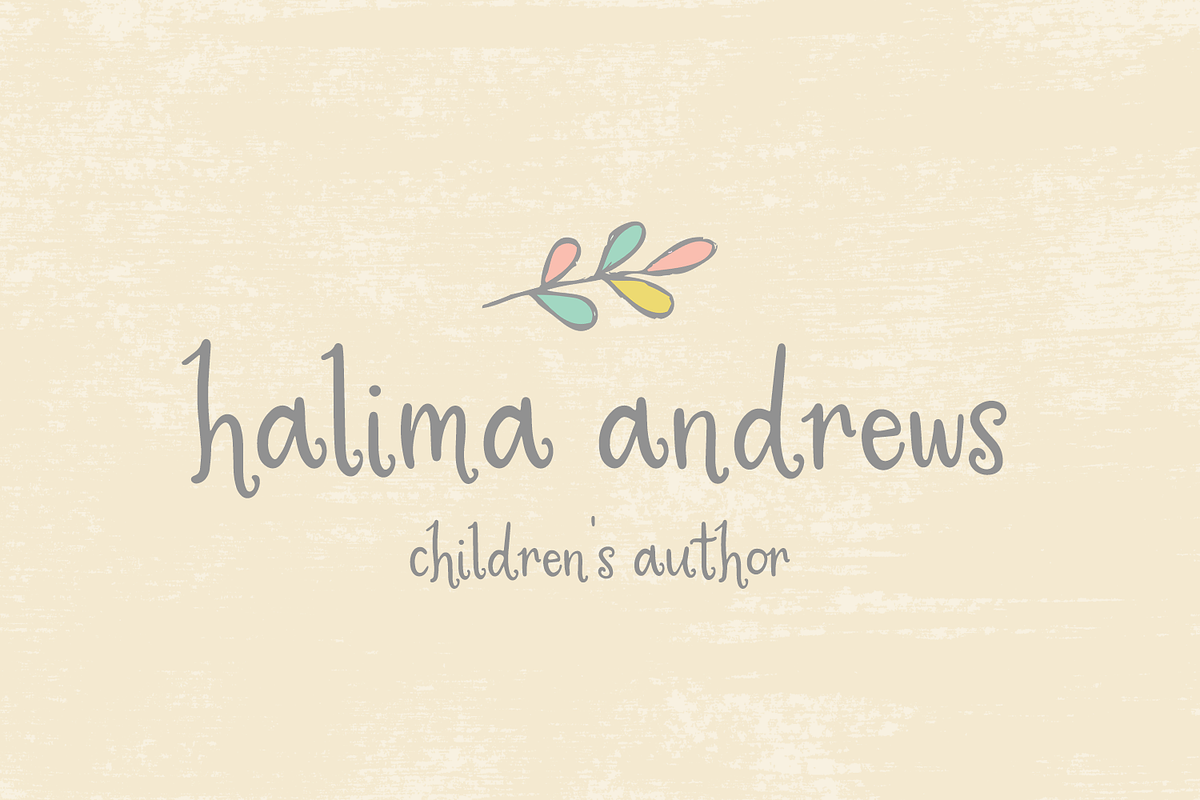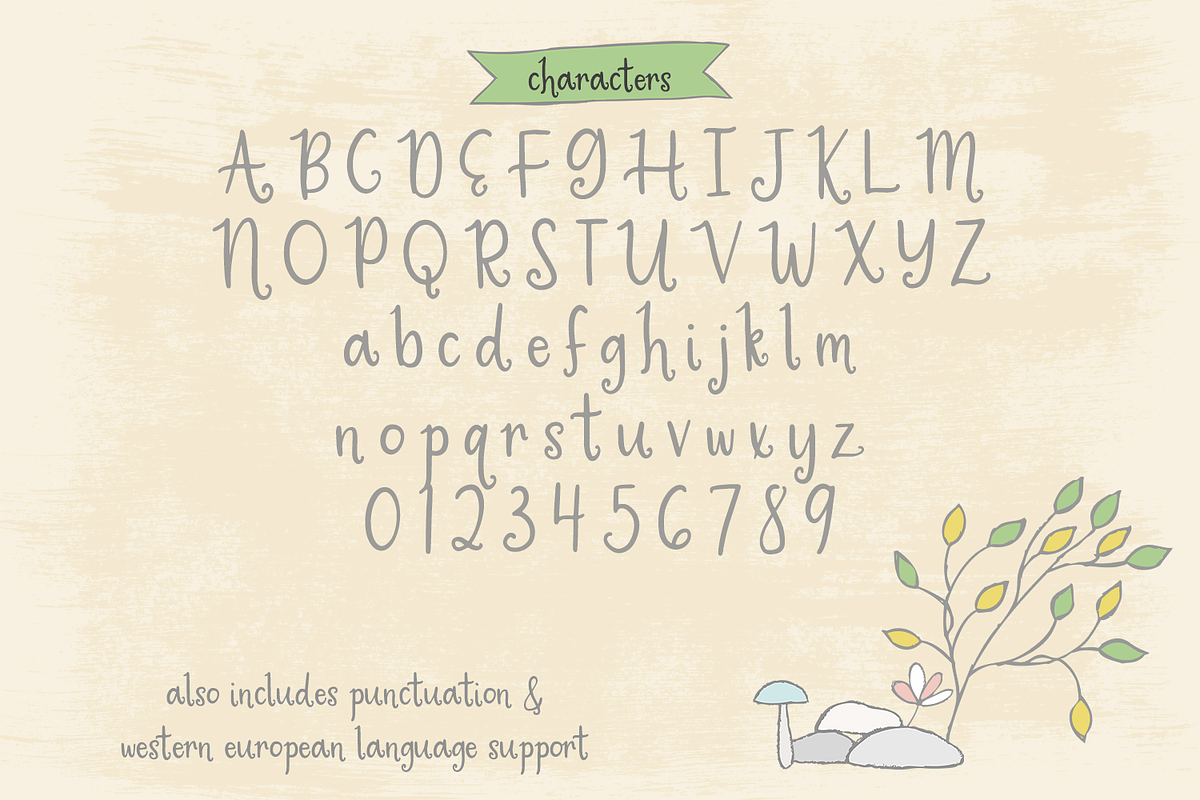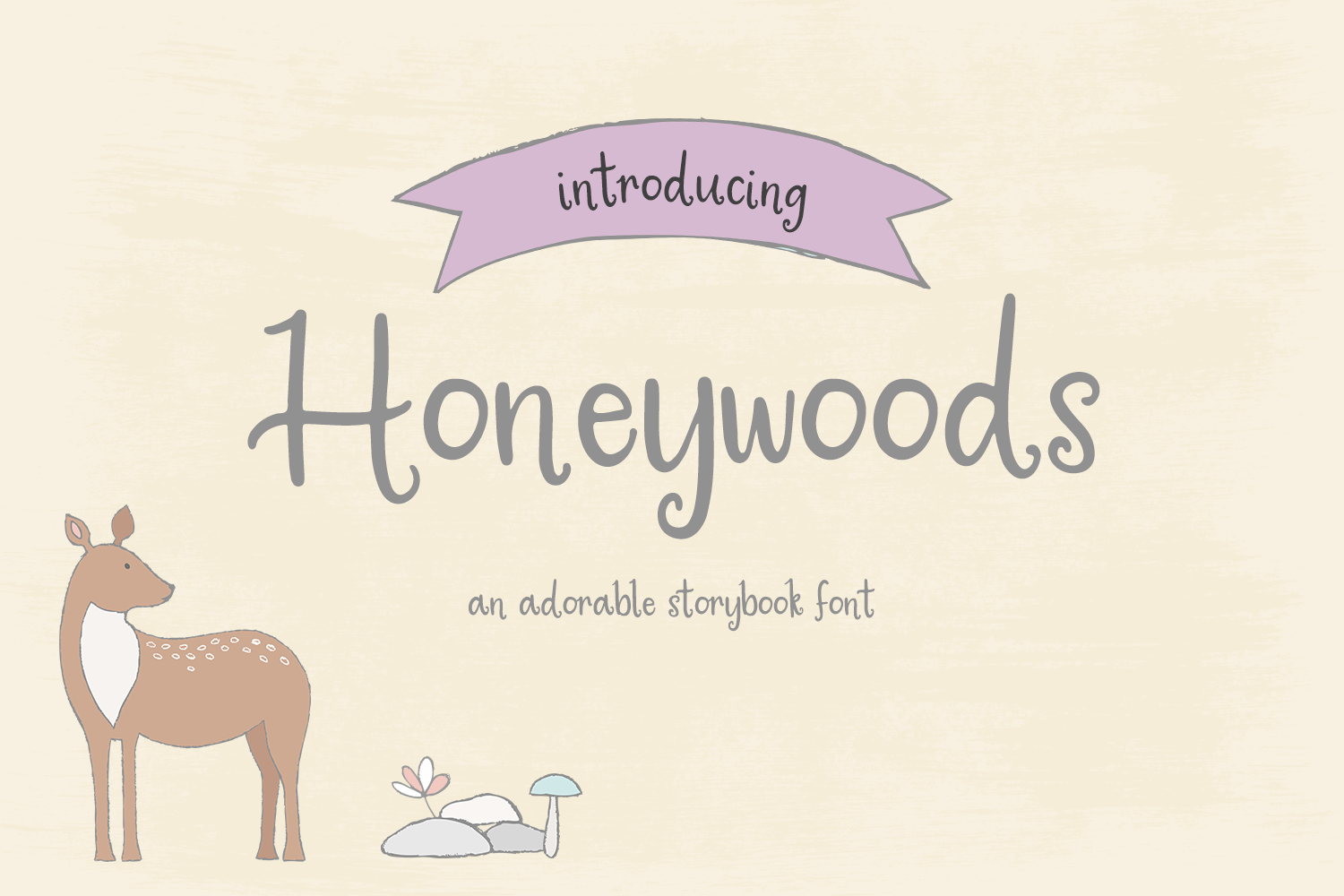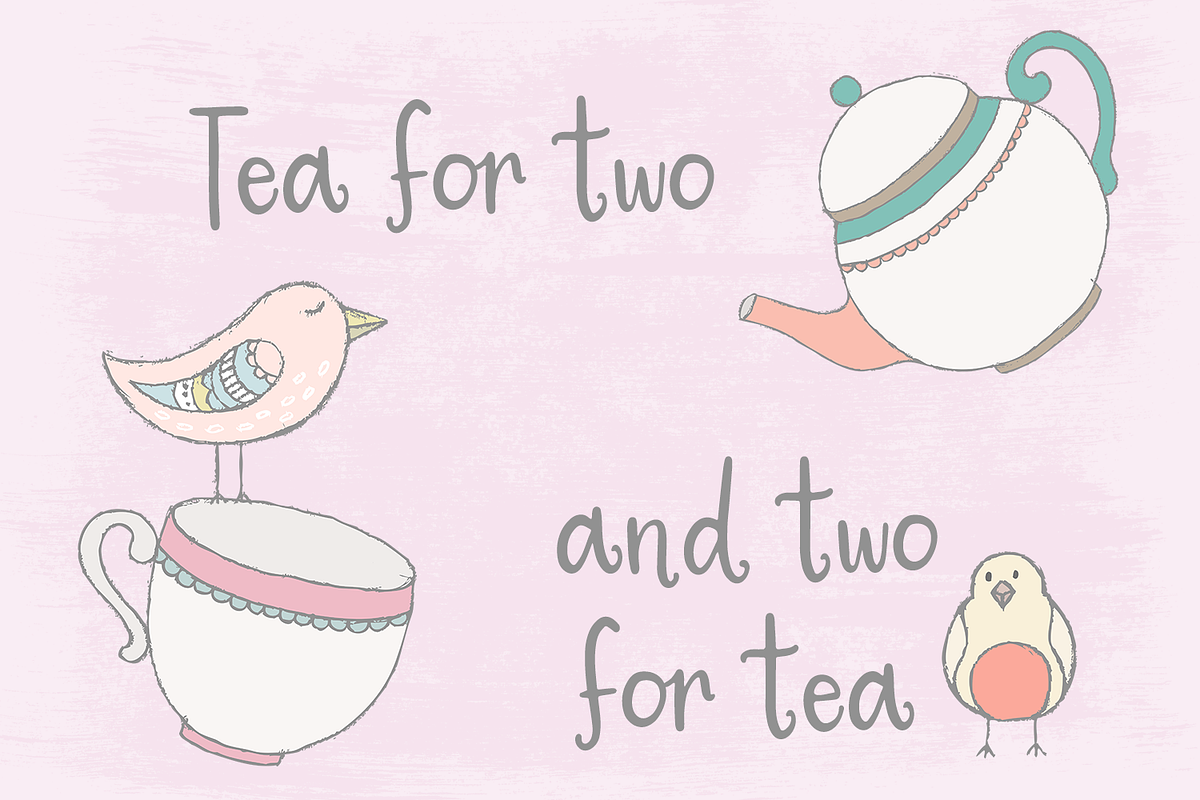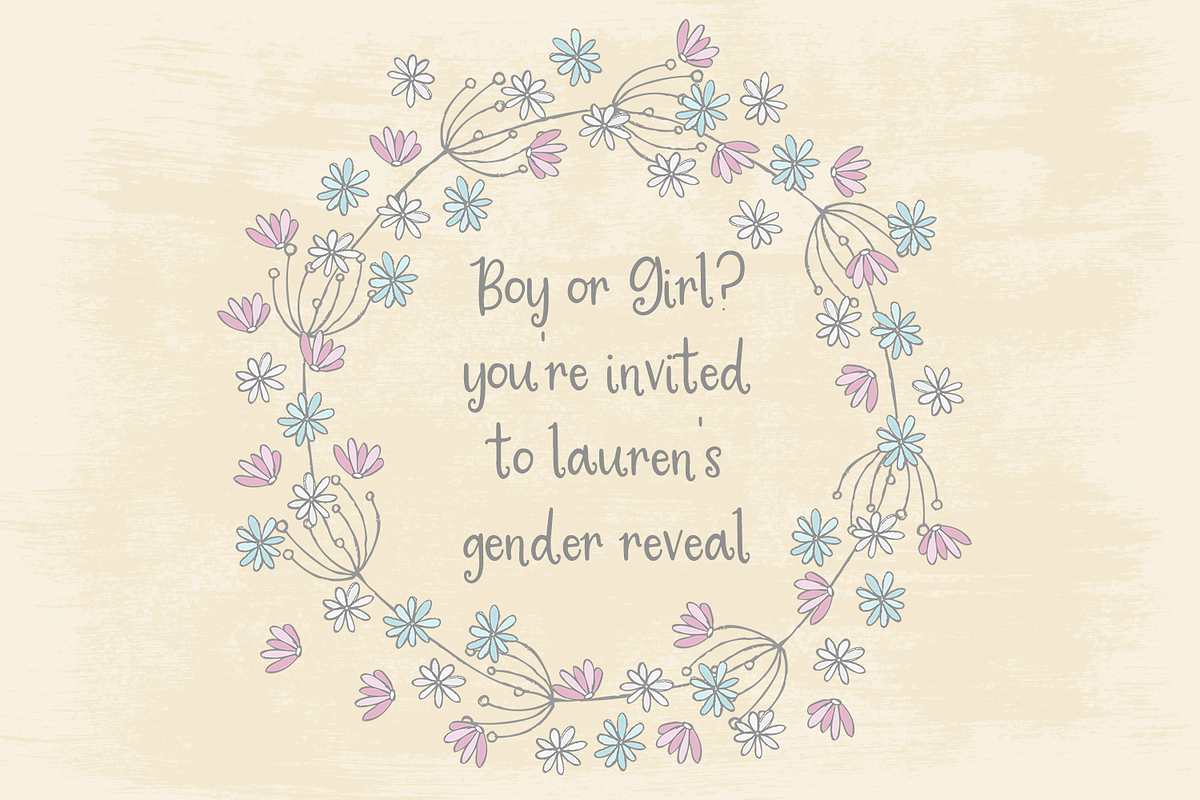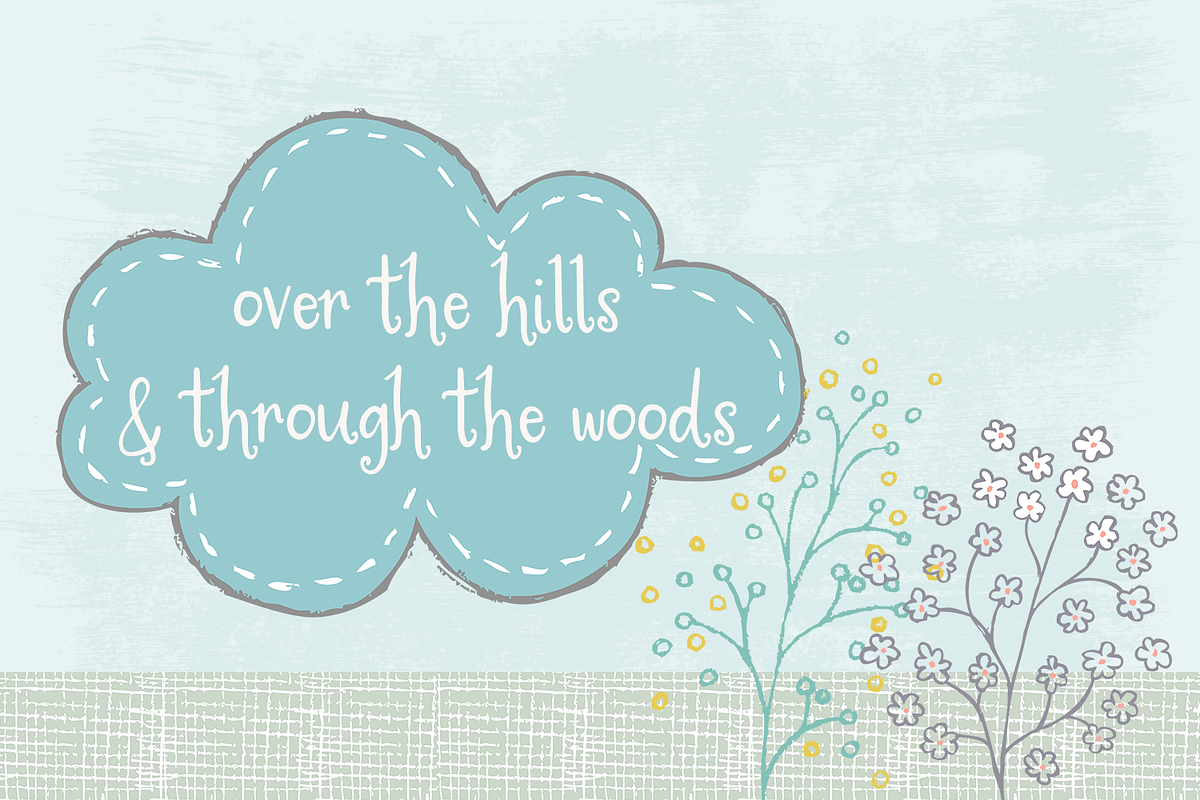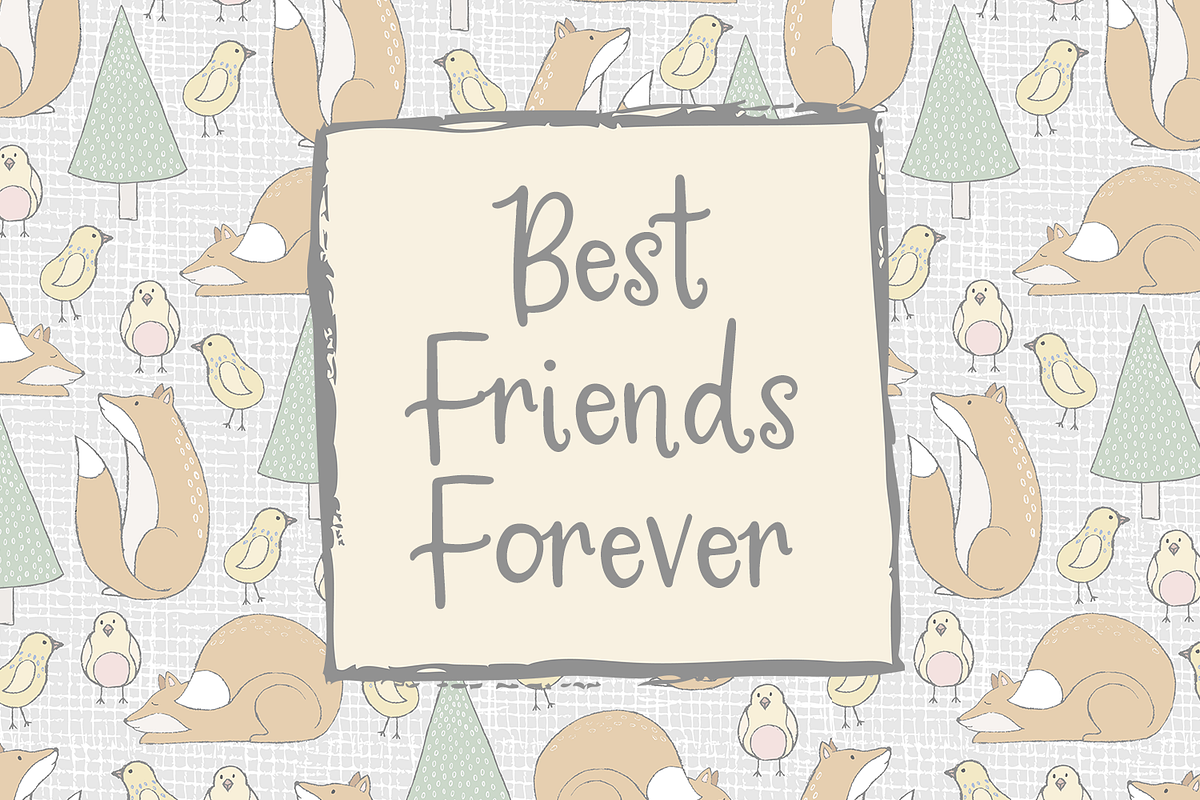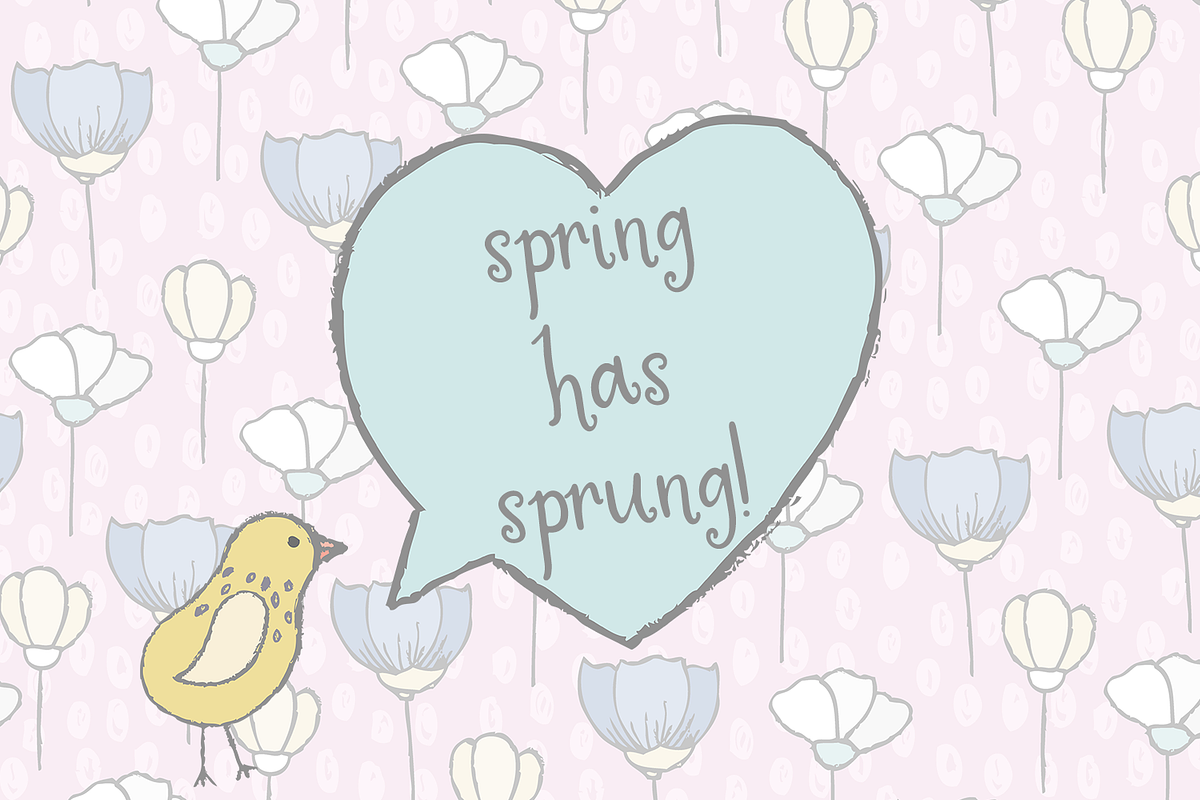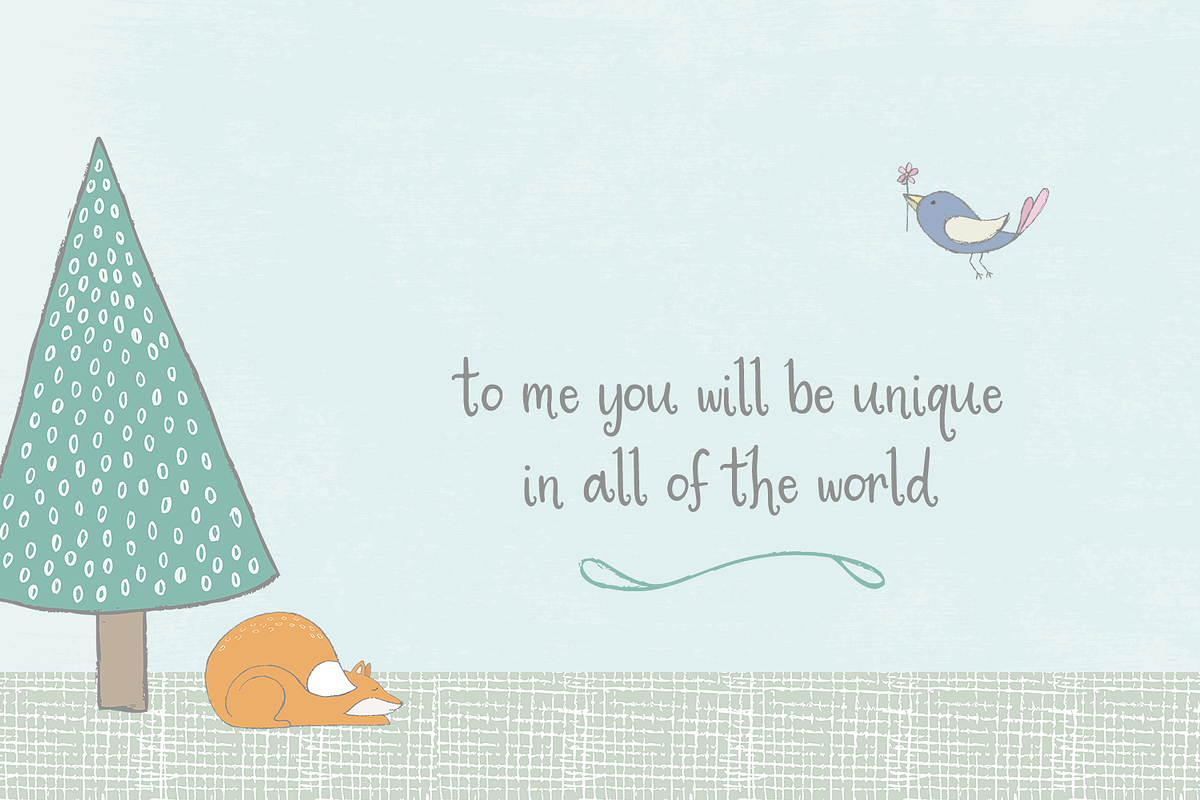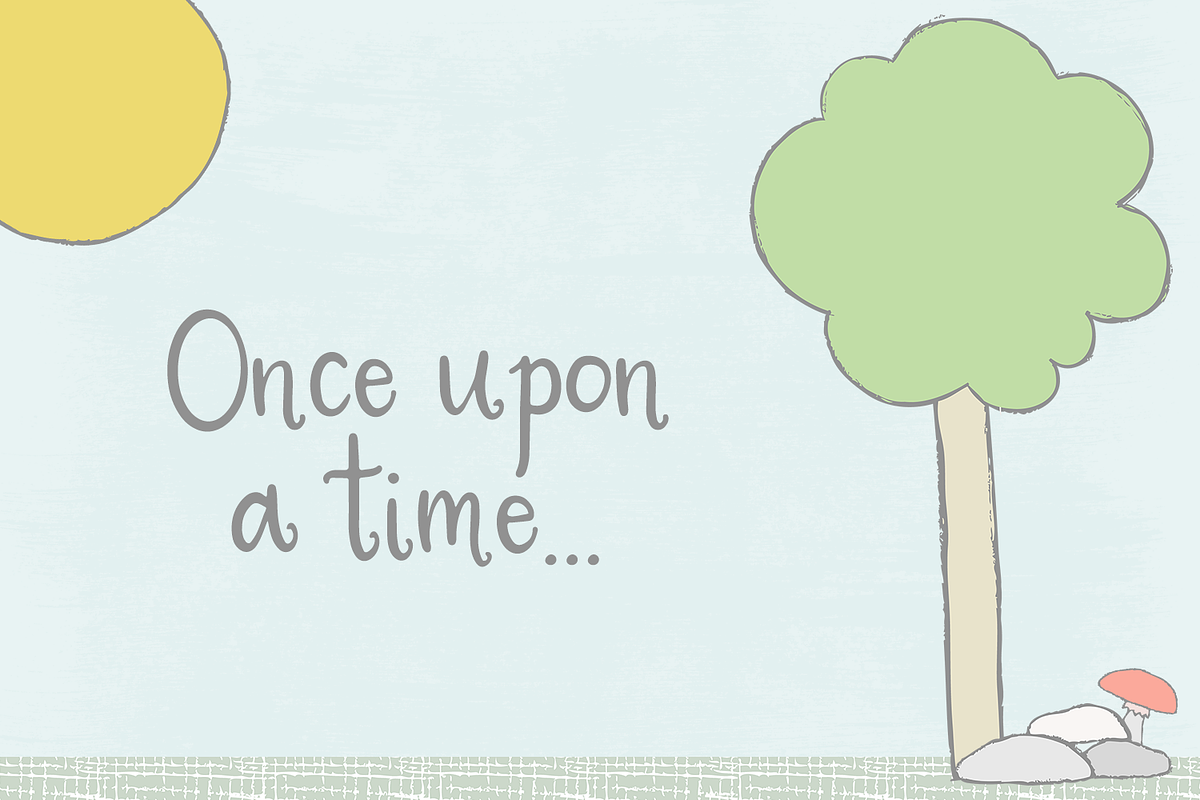
Honeywoods Storybook Font
Introducing Honeywoods, a magical storybook font. With cute, whimsical letters, Honeywoods would be perfect for a child-centric brand, children’s books, and more!
Honeywoods is best for:
- website header elements needing magical, childlike quality
- clean print design, like magazines + flyers, tailored to children
- logos + branding for child-centric brands
- quote graphics for social media
Honeywoods includes:
- uppercase characters + lowercase characters
- numbers + punctuation
- Western European Language Support